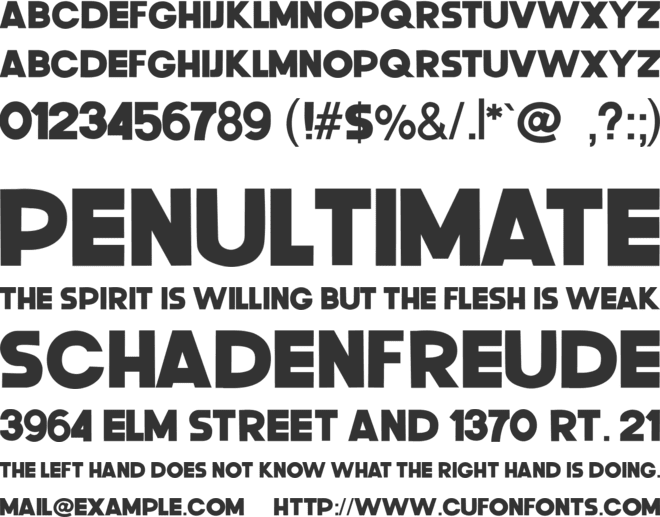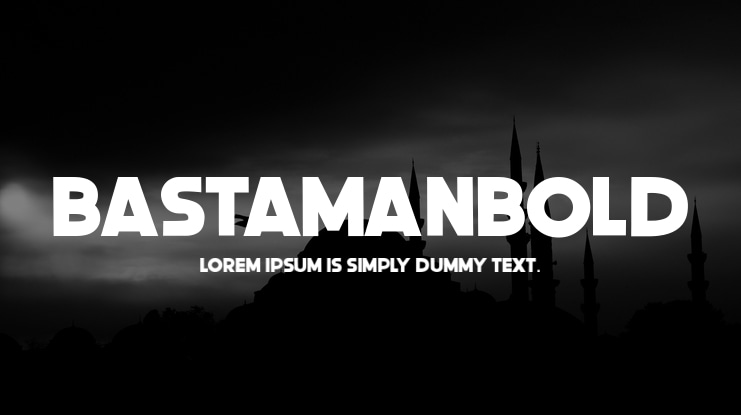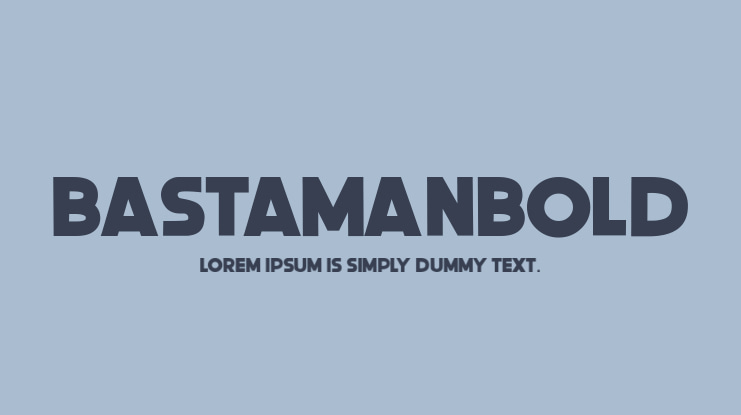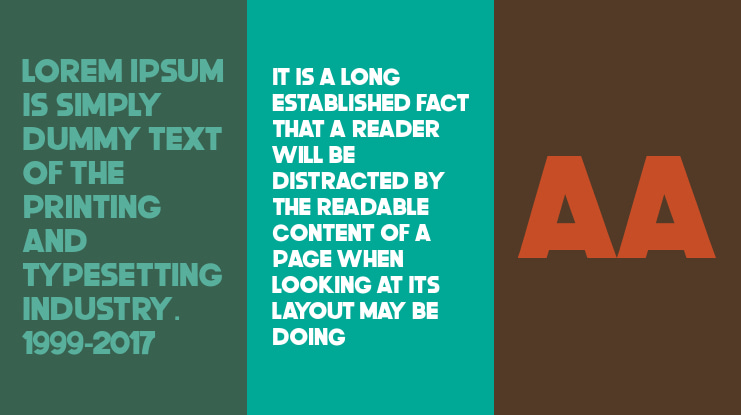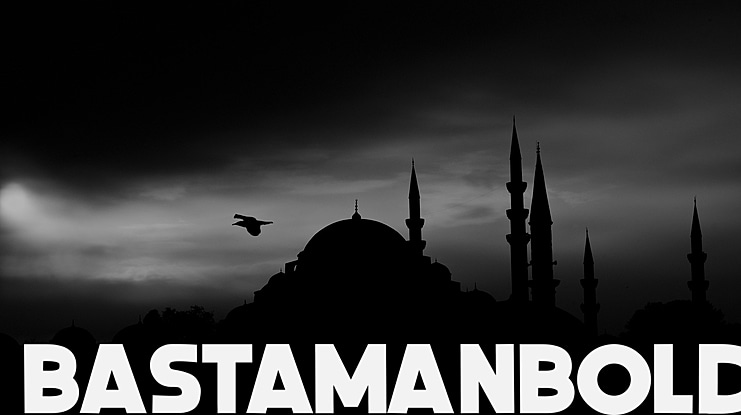
BastamanBold Font
Bastaman is a bold and fierce display font. It can be used for a variety of ideas, both formal and casual. It works great on sporting or racing designs.